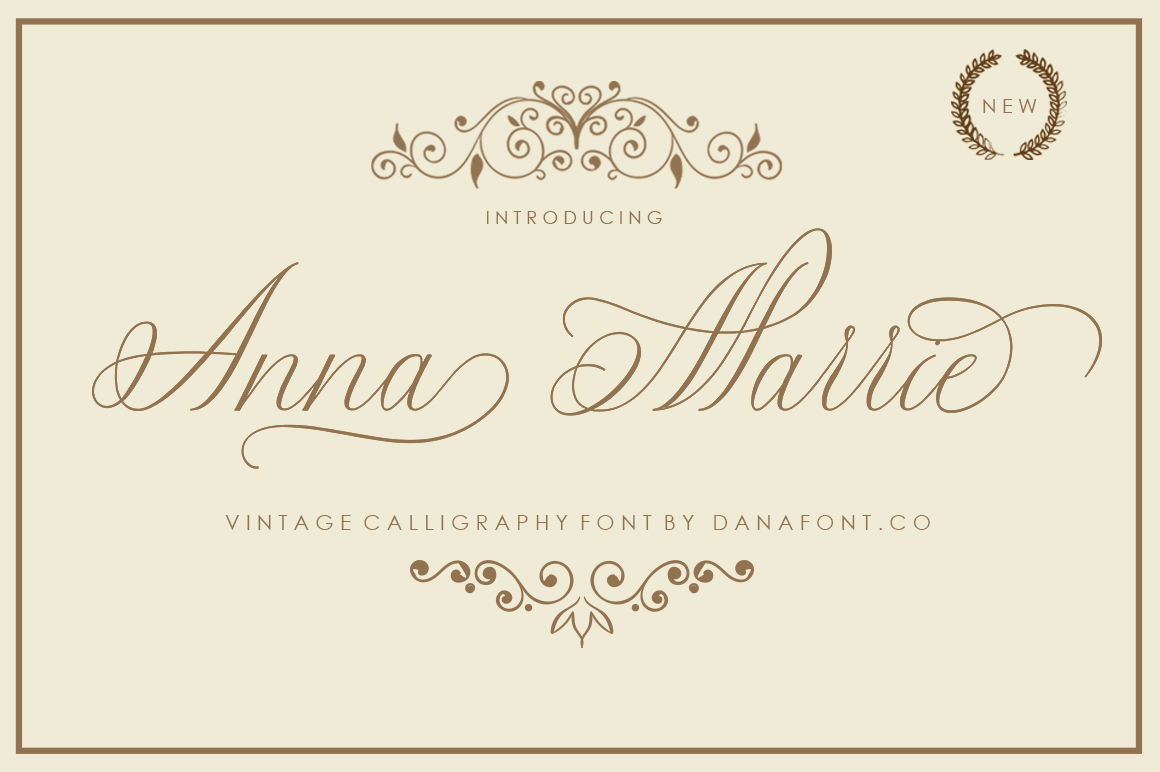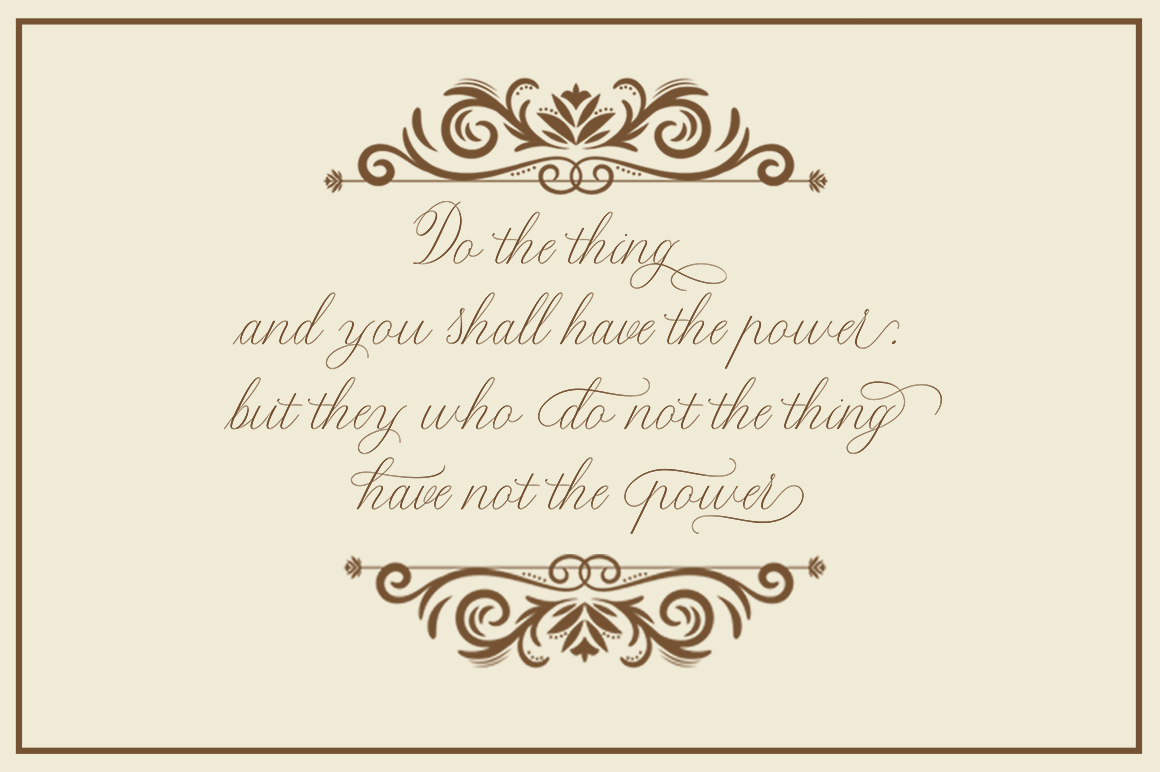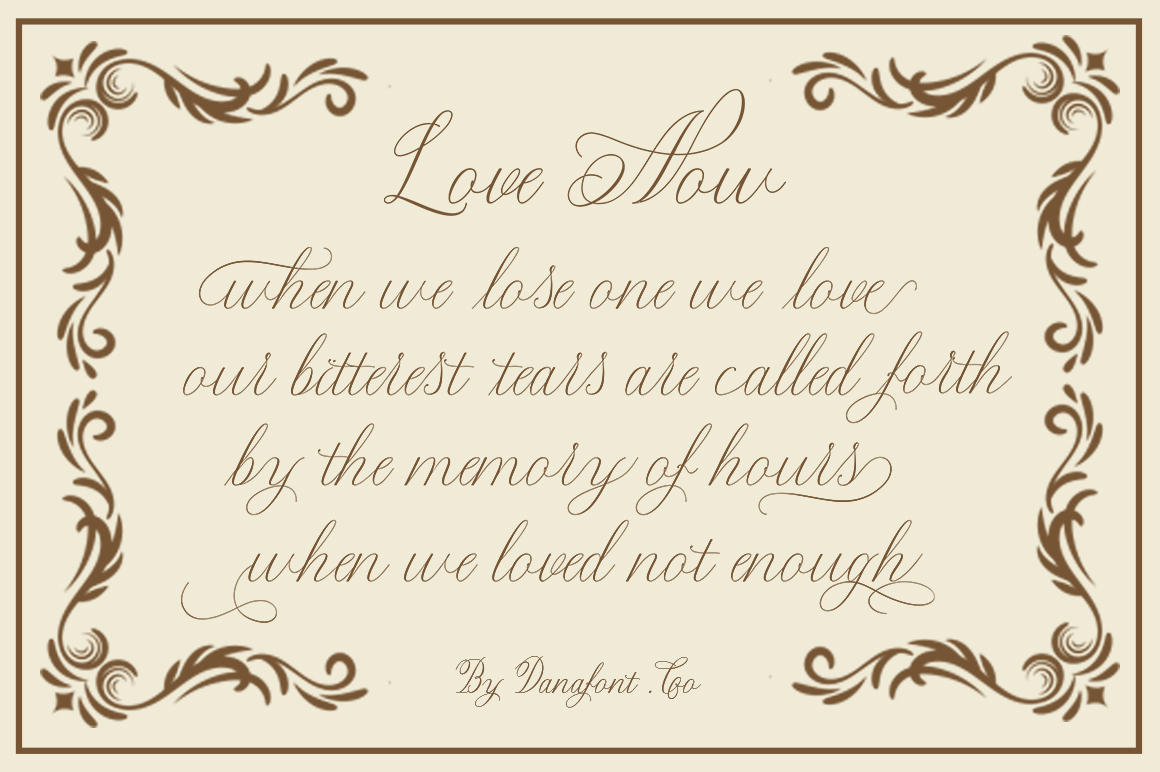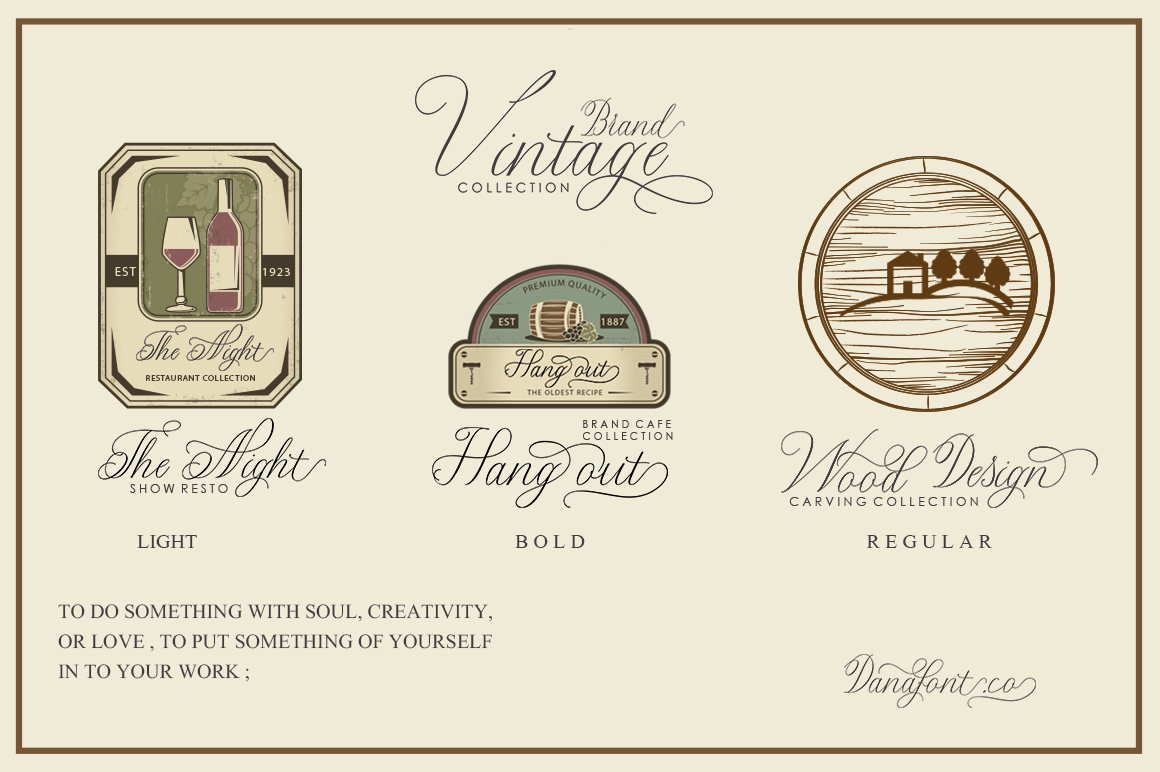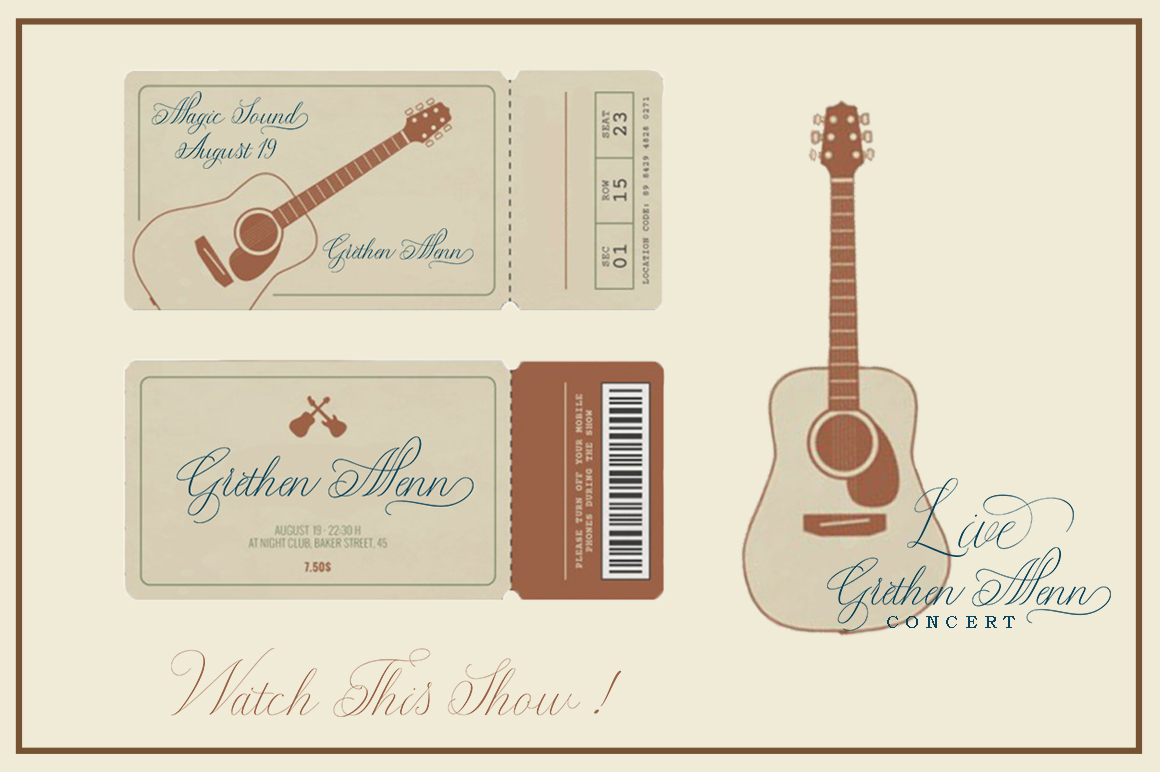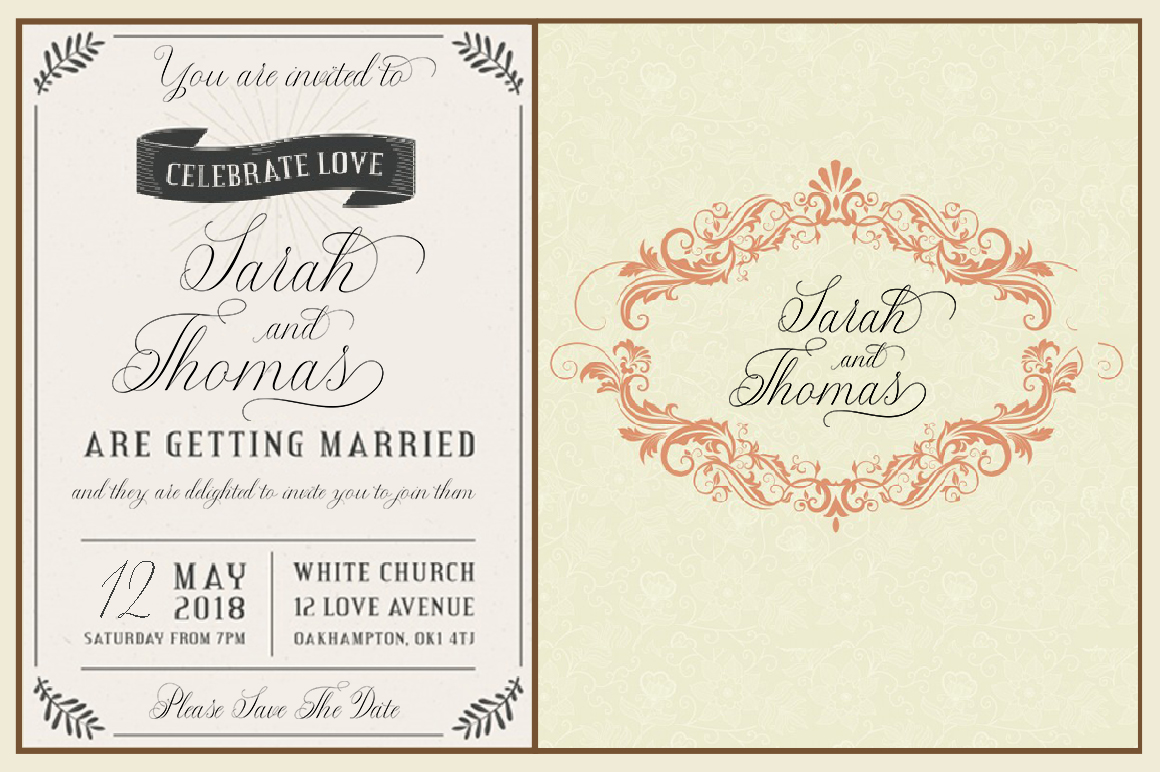
Anna Marrie Font
Anna Marrie is a beautiful calligraphy script font that comes with tons of alternate characters and style! This font brings tons of stylistic elegance with its handlettering and delicate strokes. This font is subtle, glamorous and ideal for formal uses.